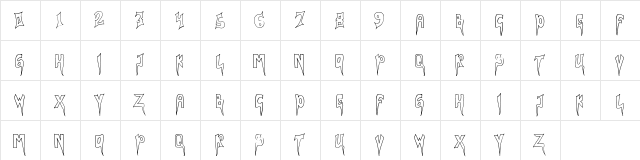
Ndlewer Regular
| Designer | Oziel89 Studio |
Design Context for Ndlewer Typeface
Ndlewer is a composed and adaptable typeface that performs quietly and consistently across a wide range of design contexts.